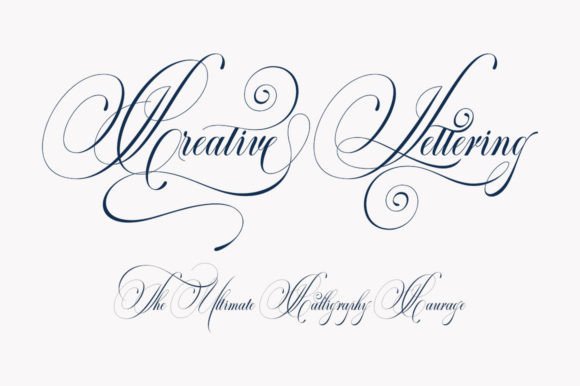
Classical Calligraphy Font
Classical Calligraphy is a vintage calligraphy script font that comes with beautiful alternative characters. Copperplate mixed calligraphy with a handwriting style to show its performance. Classical Calligraphy appears as a typeface that is smooth, clean, feminine, sensual, glamorous, simple, and highly readable.